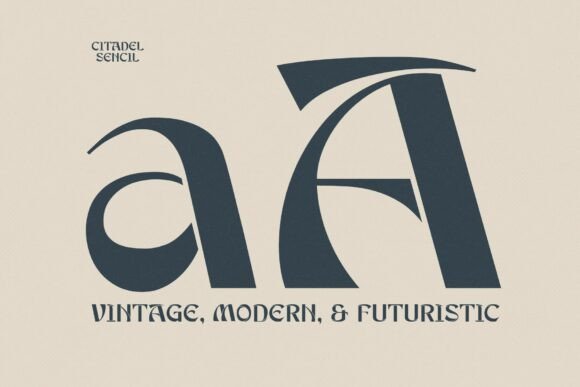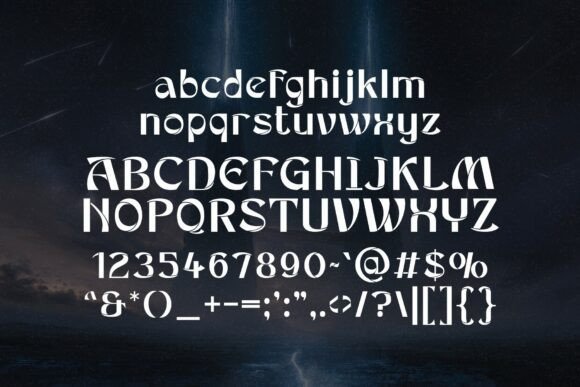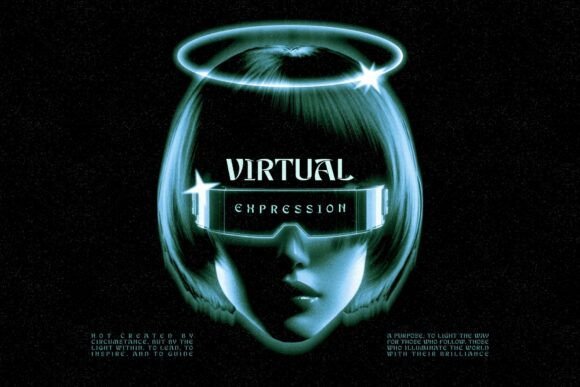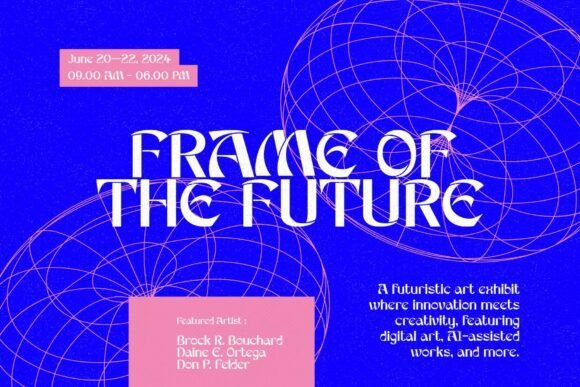
Citadel Stencil Font
Citadel Stencil is where retro charm meets futuristic edge. This bold typeface fuses mid-century modern aesthetics with a cutting-edge stencil design, creating a unique visual identity that demands attention. Whether you’re crafting headlines that pop, logos that linger in memory, or branding that feels both timeless and forward-thinking, Citadel Stencil delivers with precision and style.